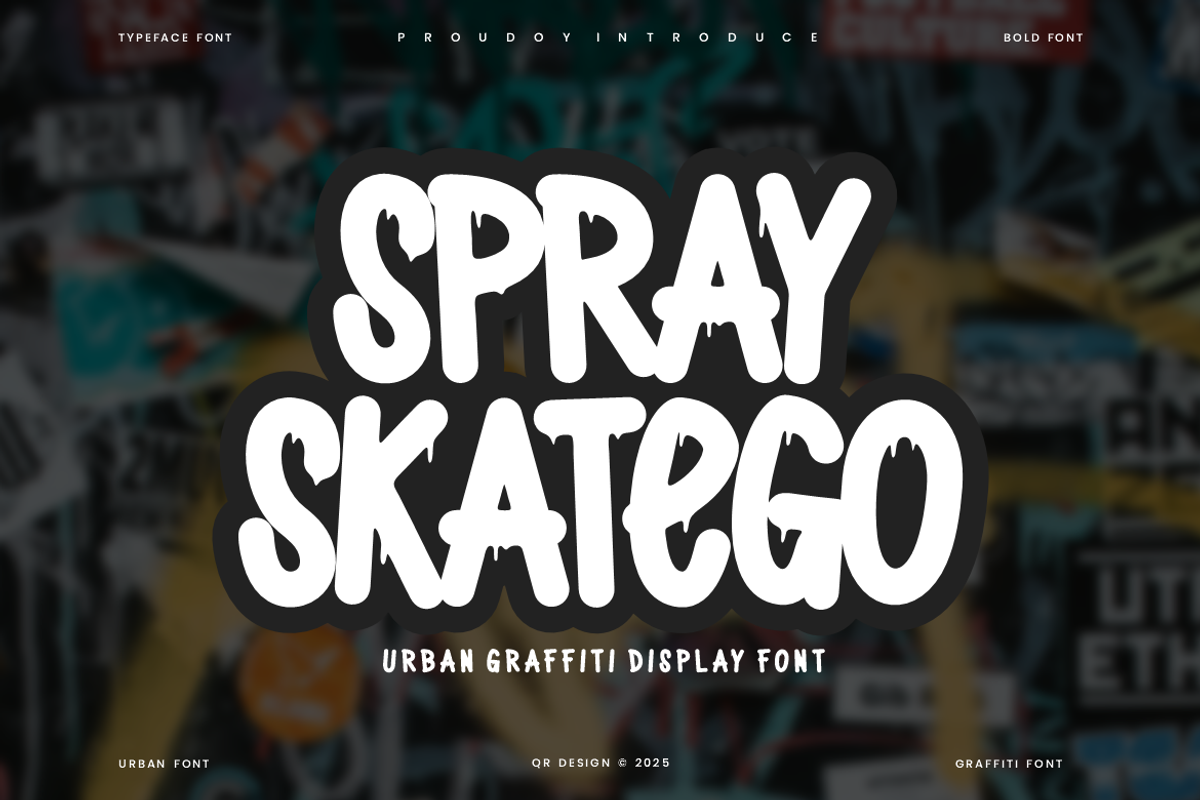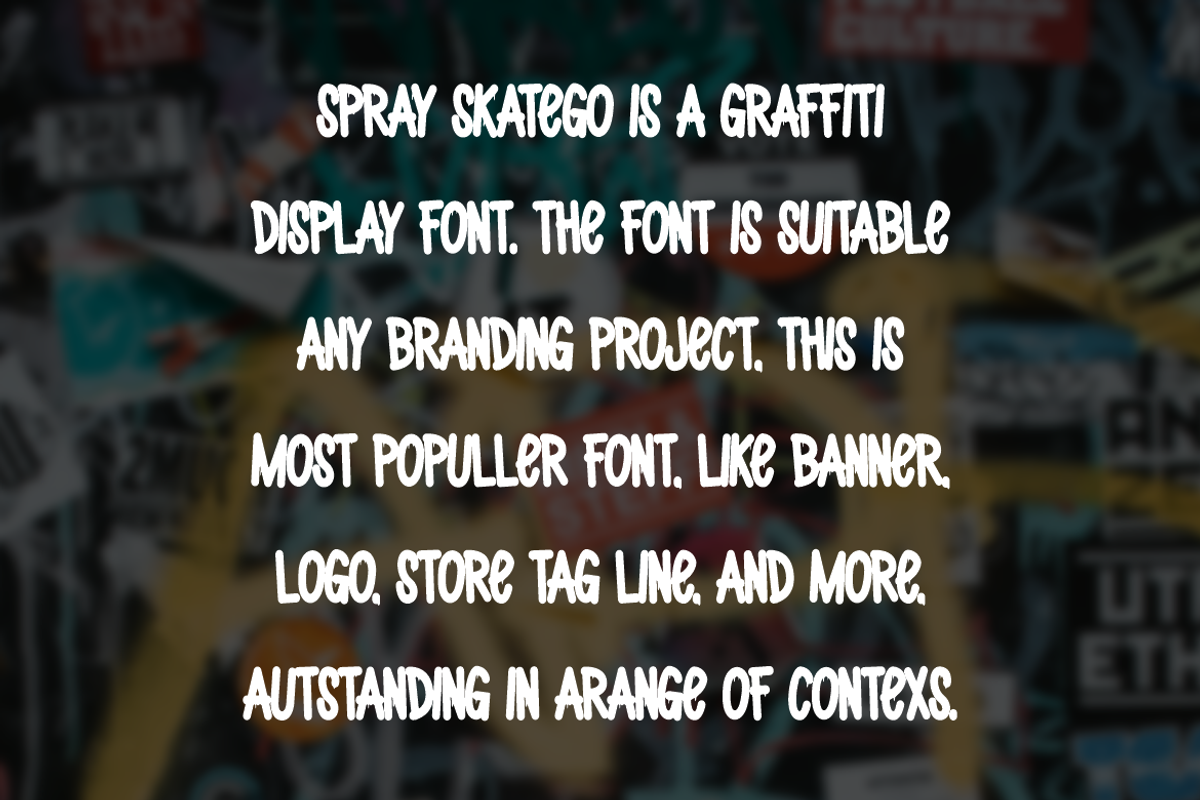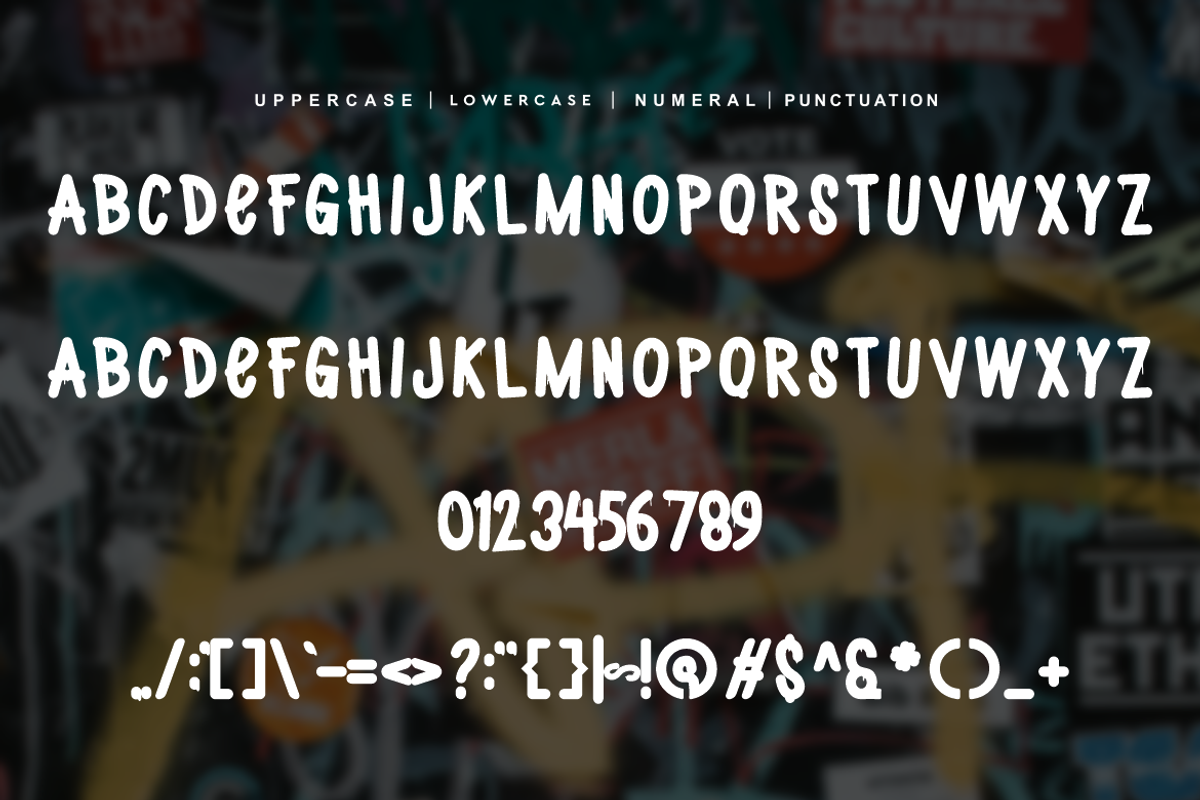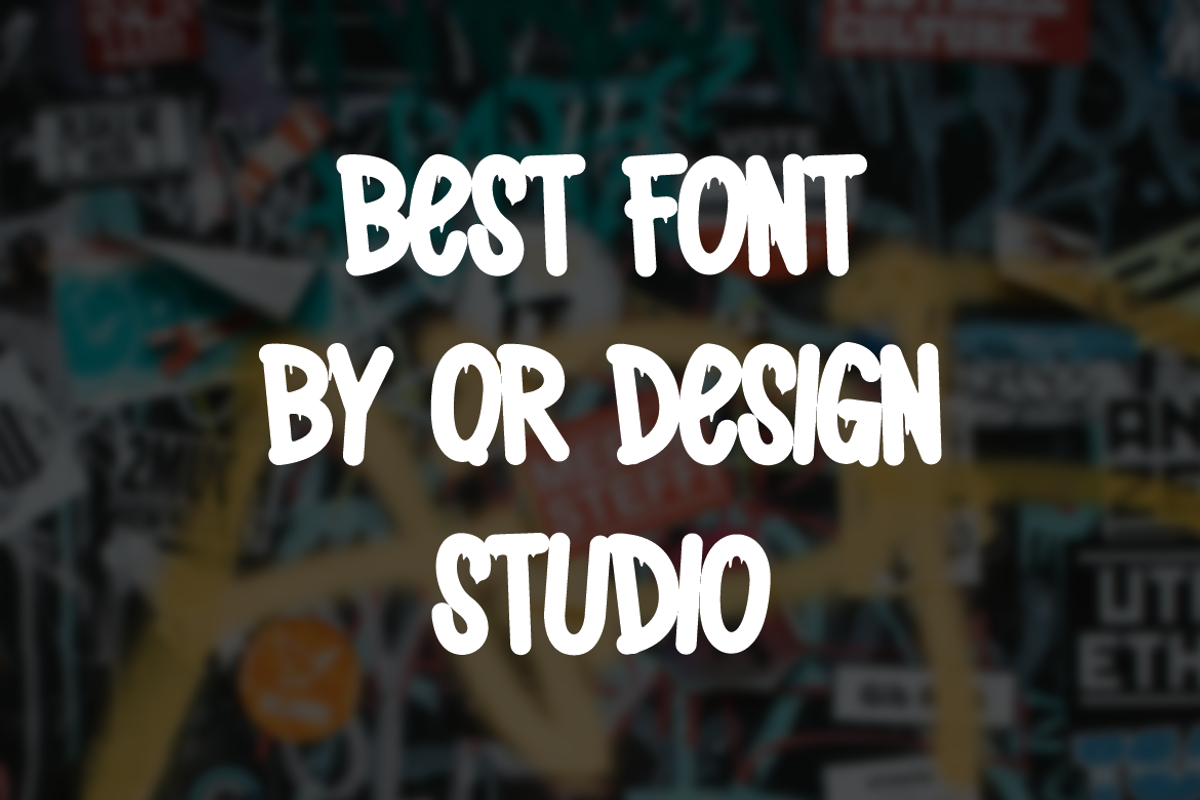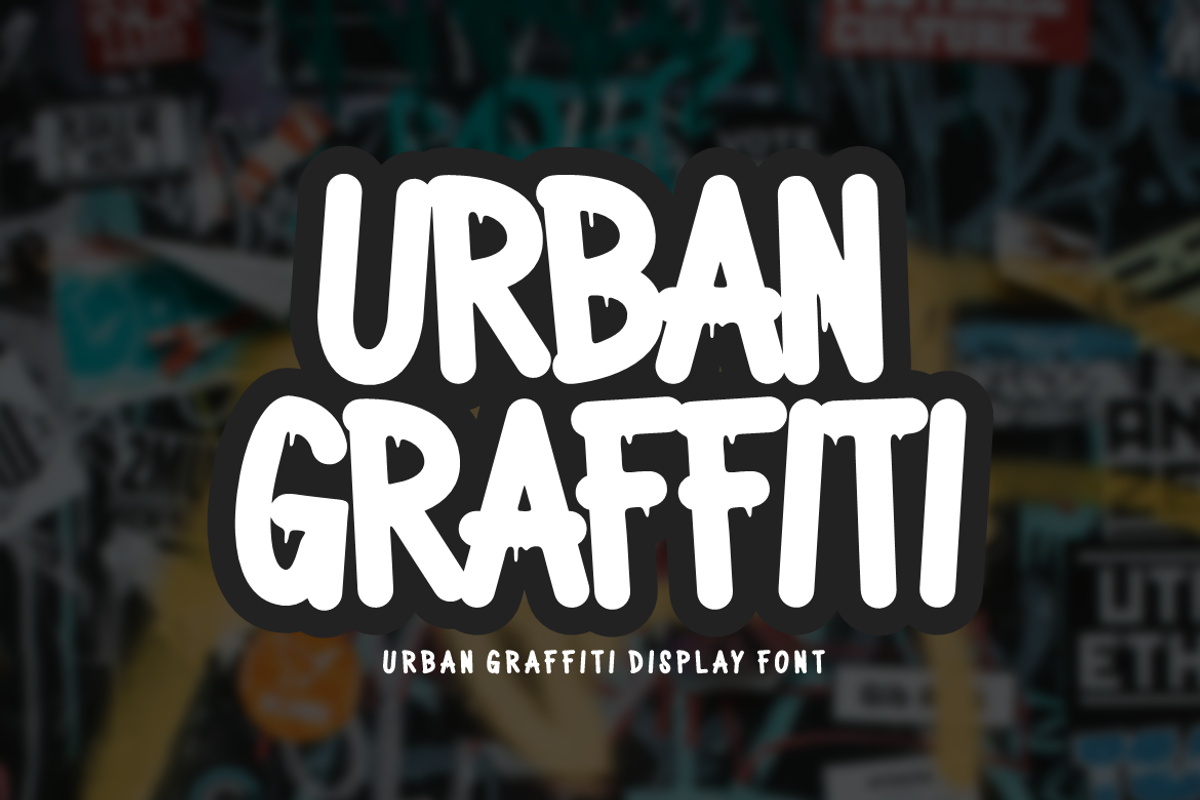
Spray Skatego - Urban Graffiti Font
Spray Skatego - Urban Graffiti Font is a bold and authentic display font. The font is suitable for any branding project like poster, logo, sport, and many more. Outstanding in a wide range of contexts.